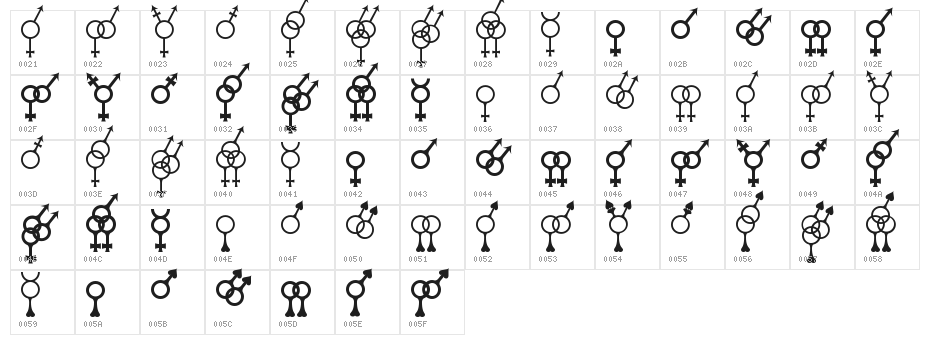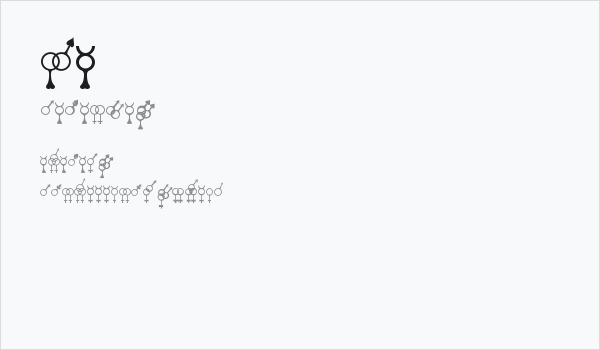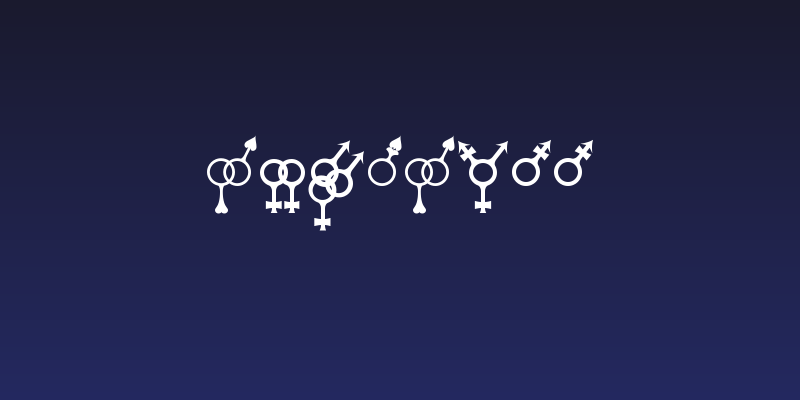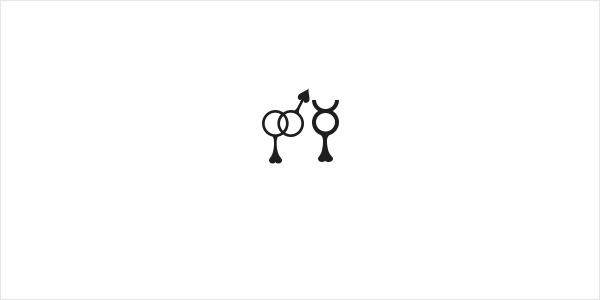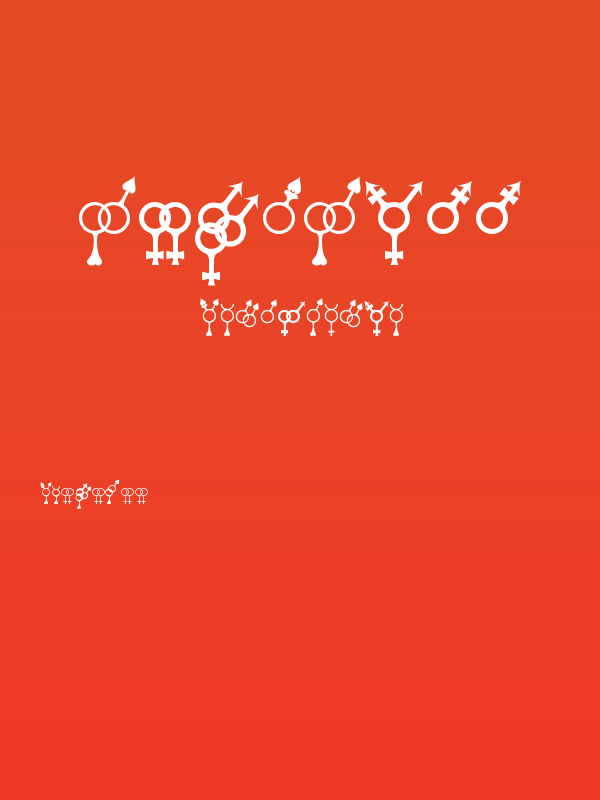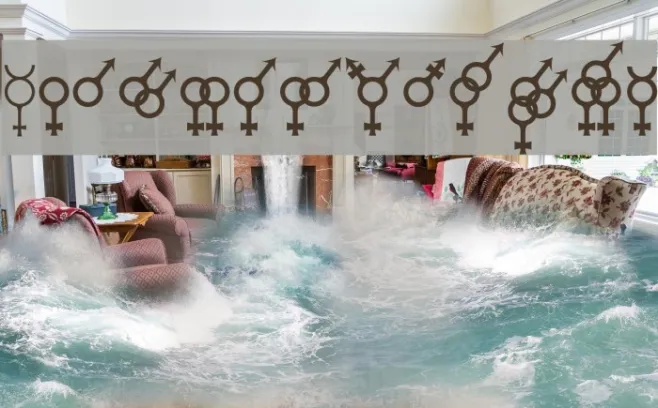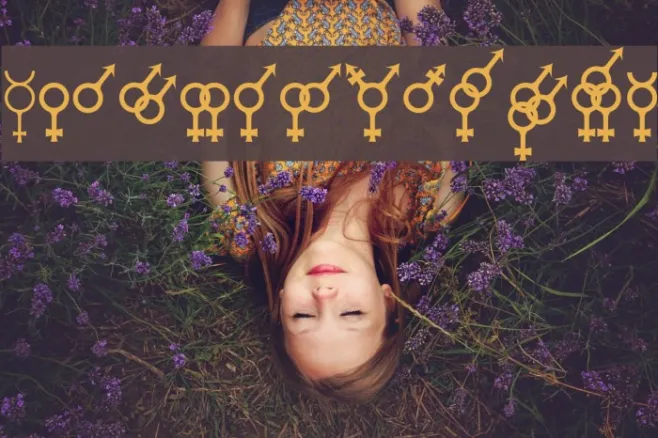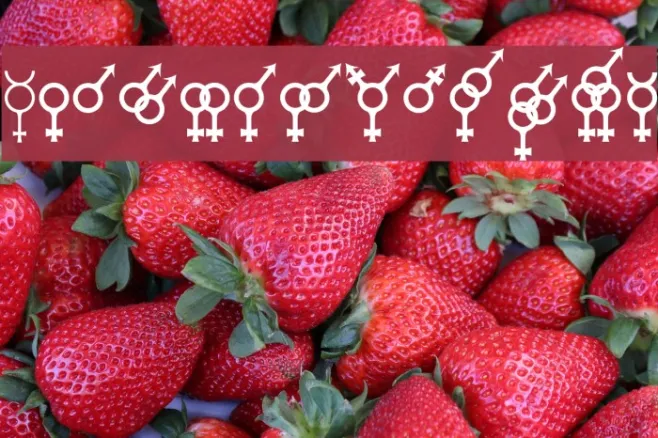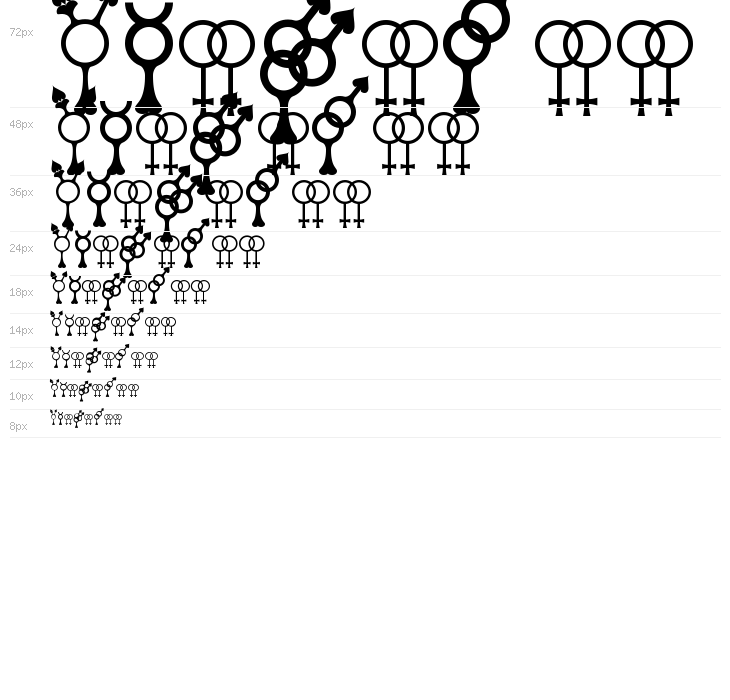
Sekushii Font
Sekushii Description
A decorative display font composed entirely of various gender and sexual orientation symbols, arranged to represent each letter and character. The symbols are bold, geometric, and highly stylized, making the font visually striking and unique.
| Overall Style | Decorative, Modern, Symbolic |
| Use Case | Headlines, Posters, Logos, Artistic displays |
| Proposed Projects | LGBTQ+ event posters, pride materials, awareness campaigns, themed branding, artistic projects. |